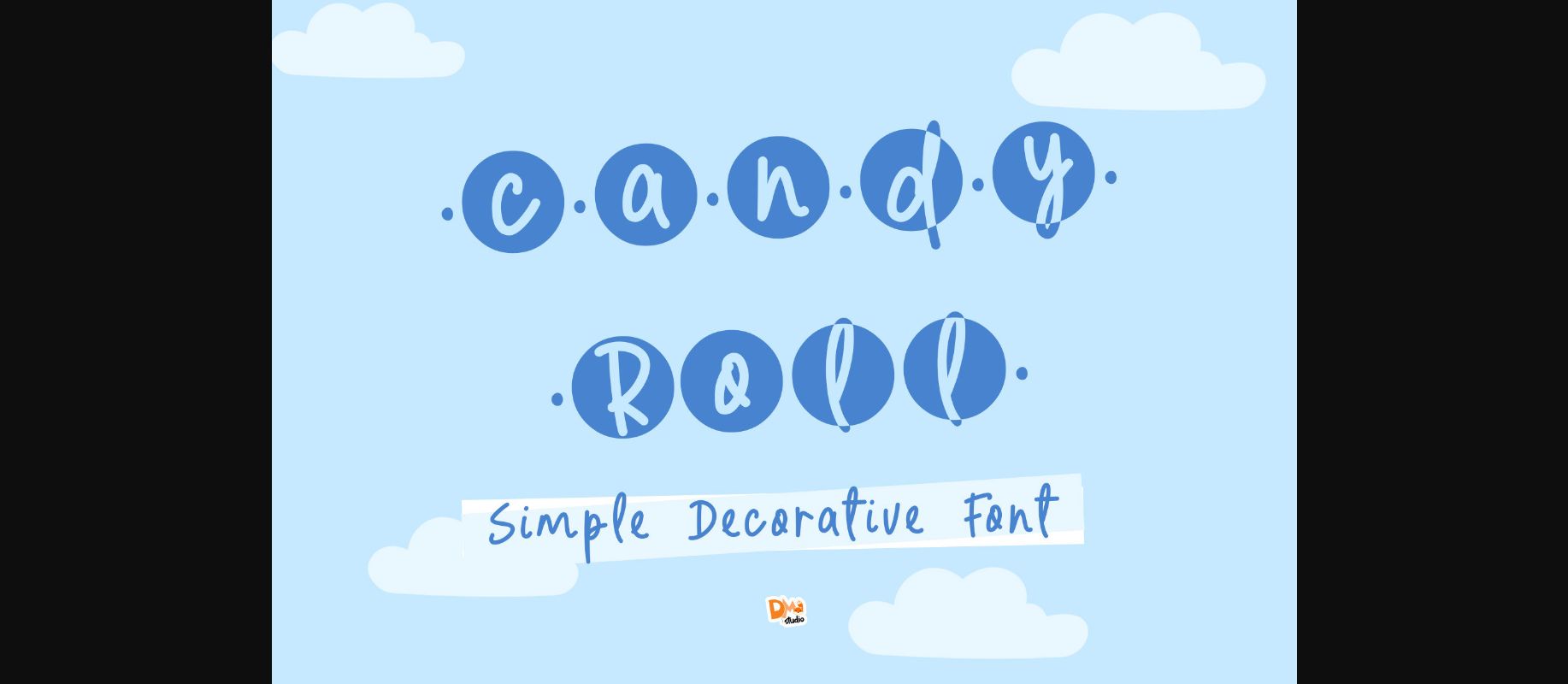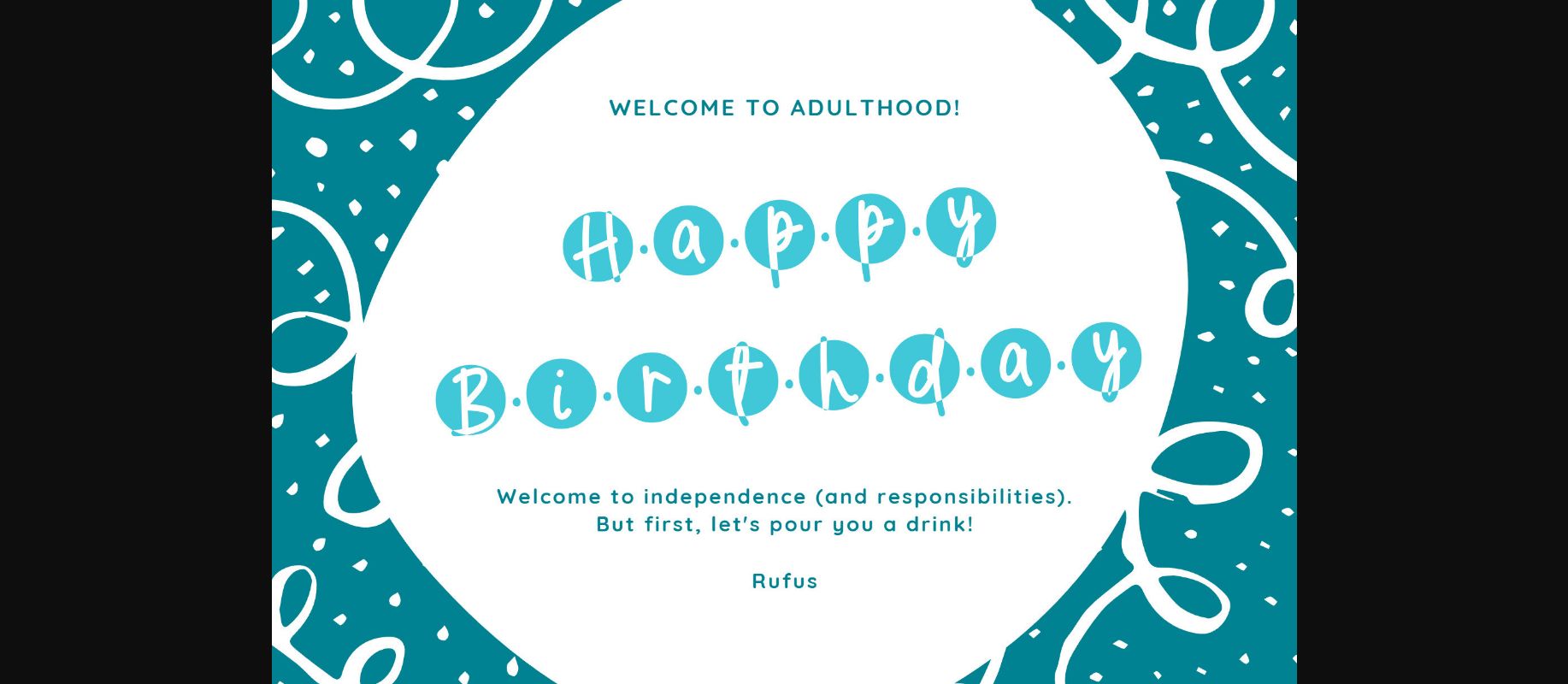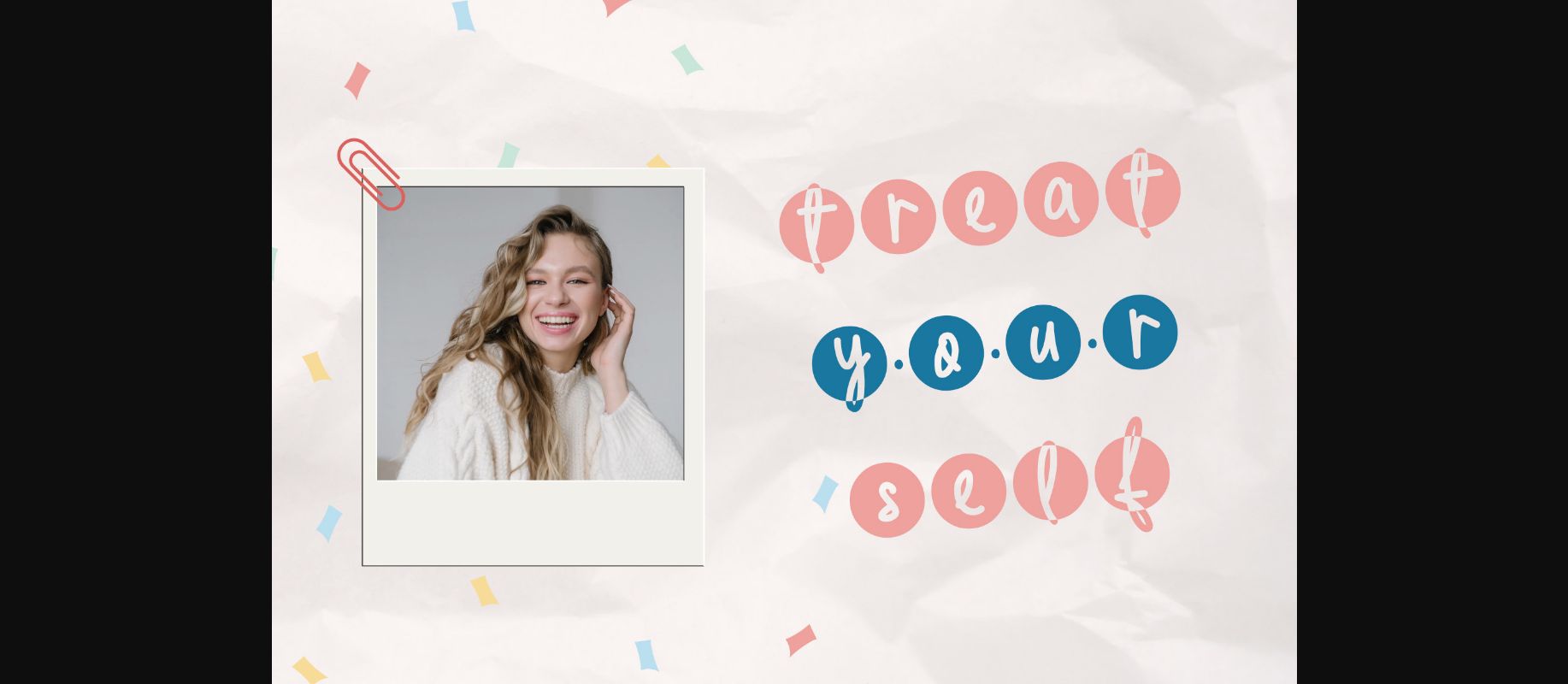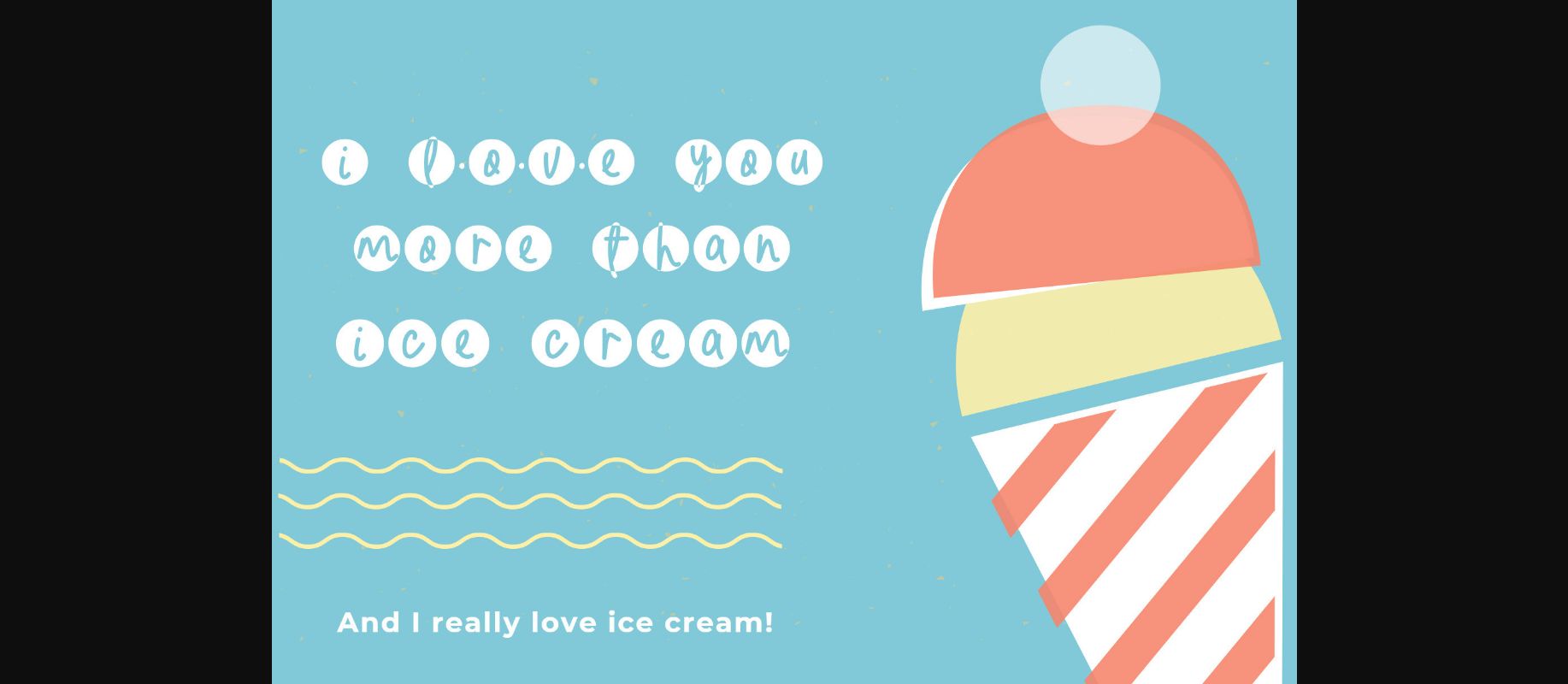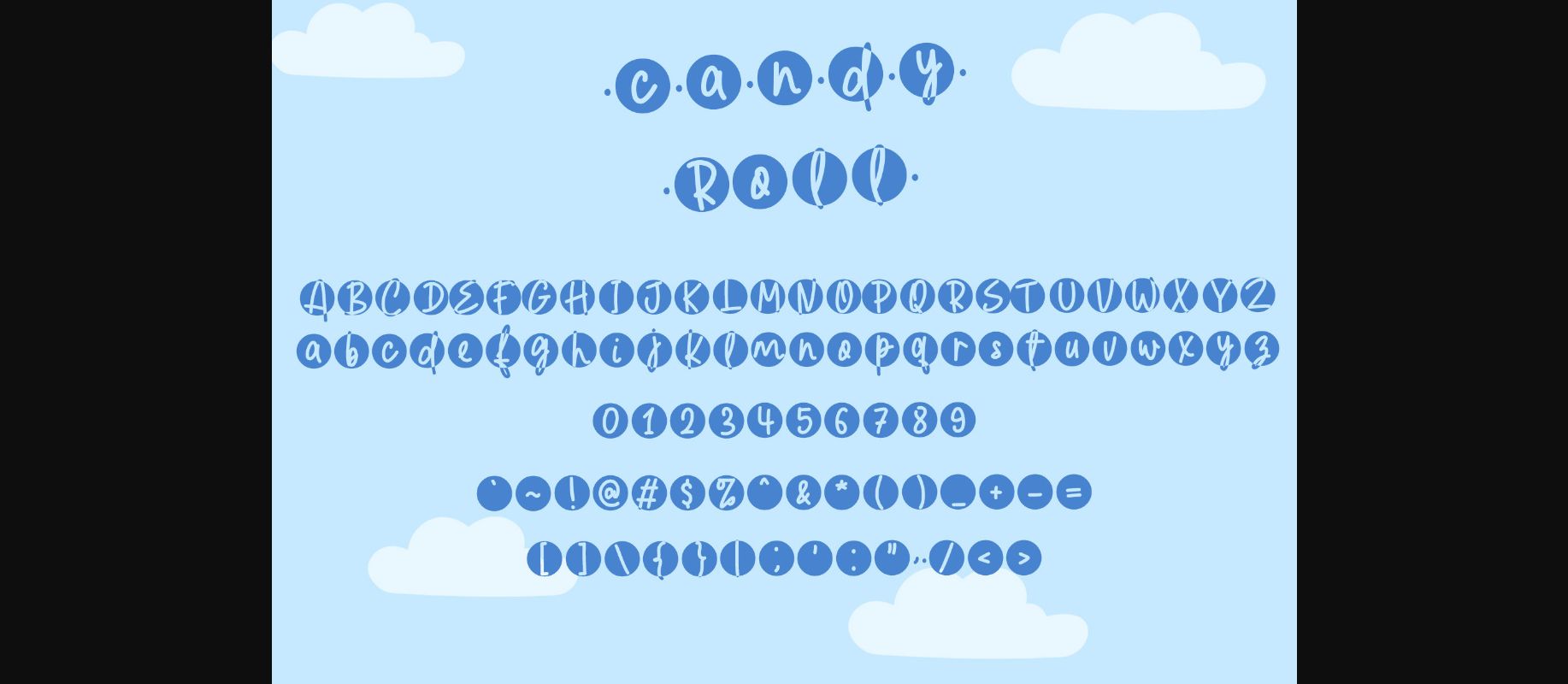
Candy Roll Font
About Candy Roll Font
Candy Roll is a fun round decorative font.
Its cute, unique, and crafty style will make your design more artsy. Create stunning designs with this amazing typeface!